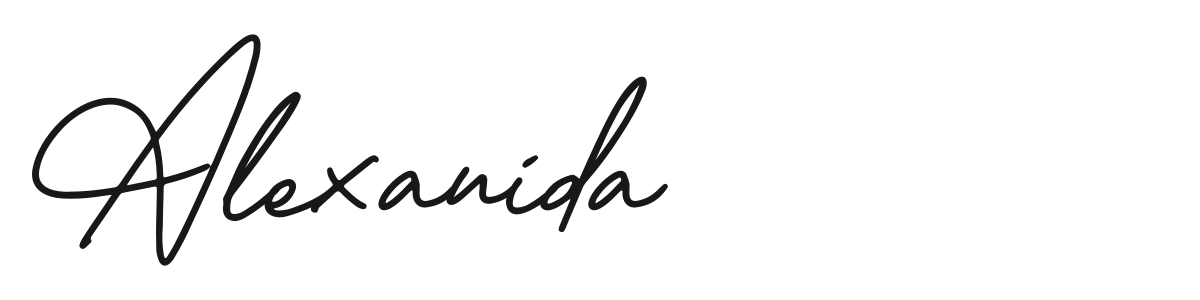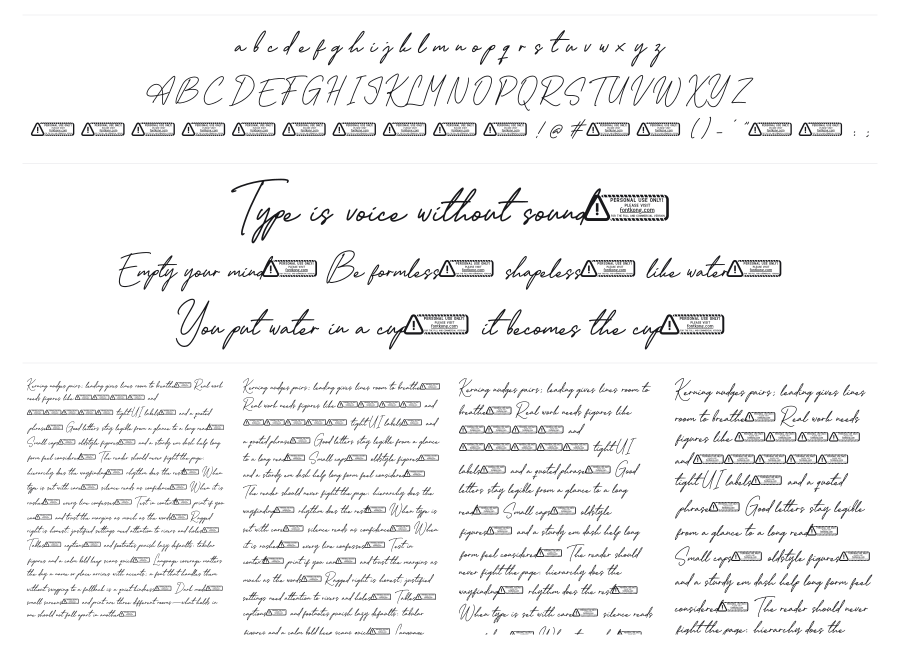
Alexanida
Alexanida is a flowing casual handwritten script from Kong Font with thin, continuous strokes that glide effortlessly across the baseline. Long looping ascenders and descenders give it a natural signature quality, somewhere between a practiced hand and expressive calligraphy. It suits branding, logotypes, and any project that needs warmth and a touch of modern romance.